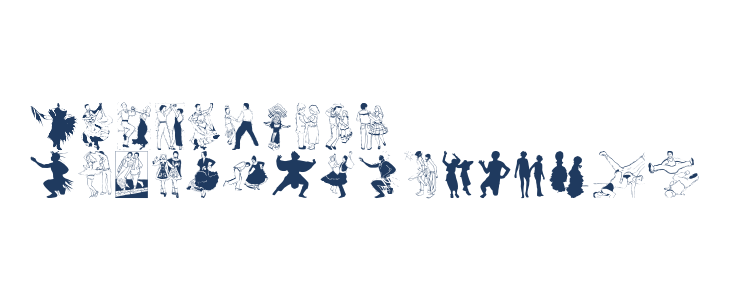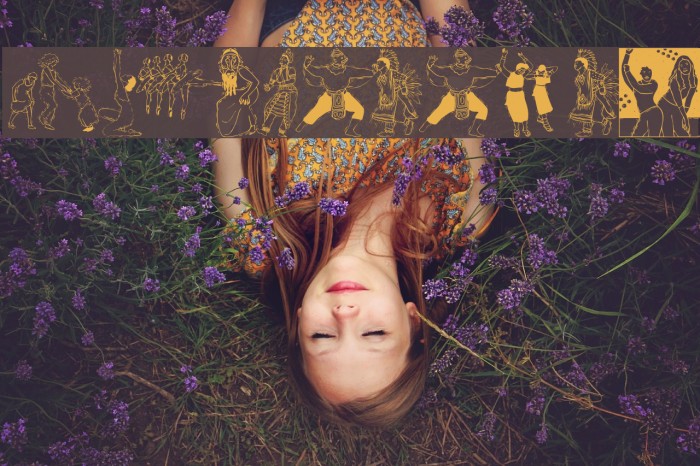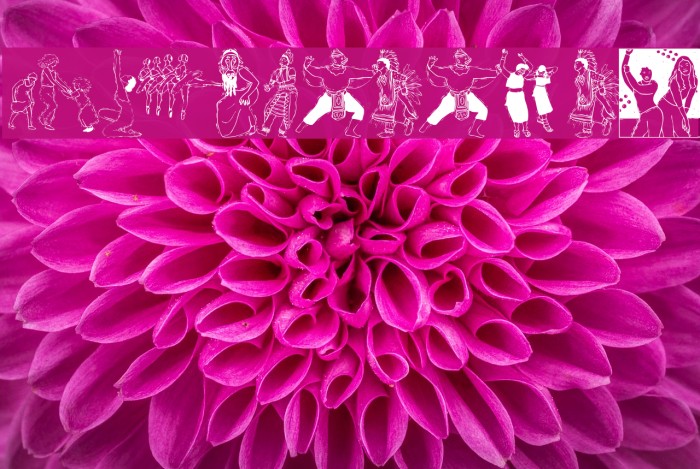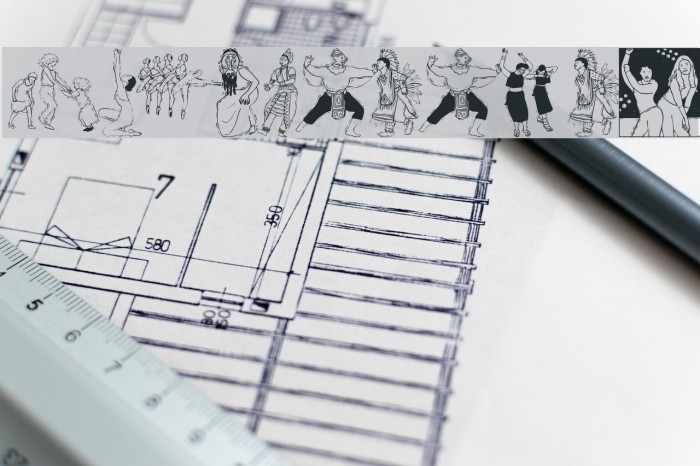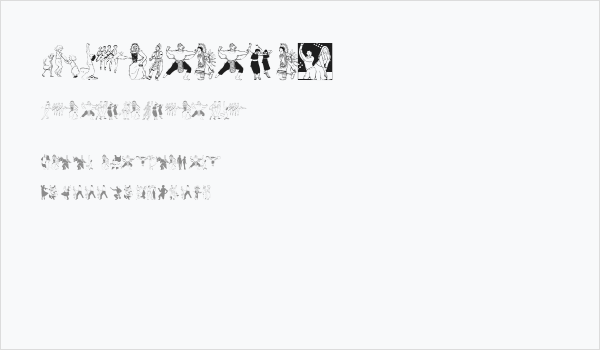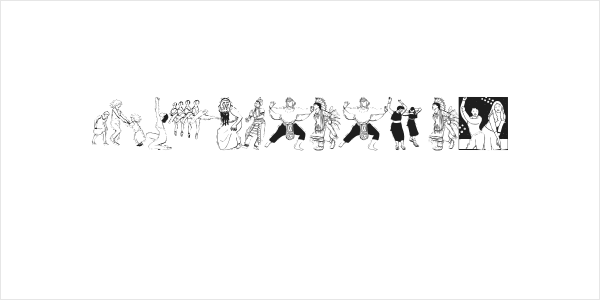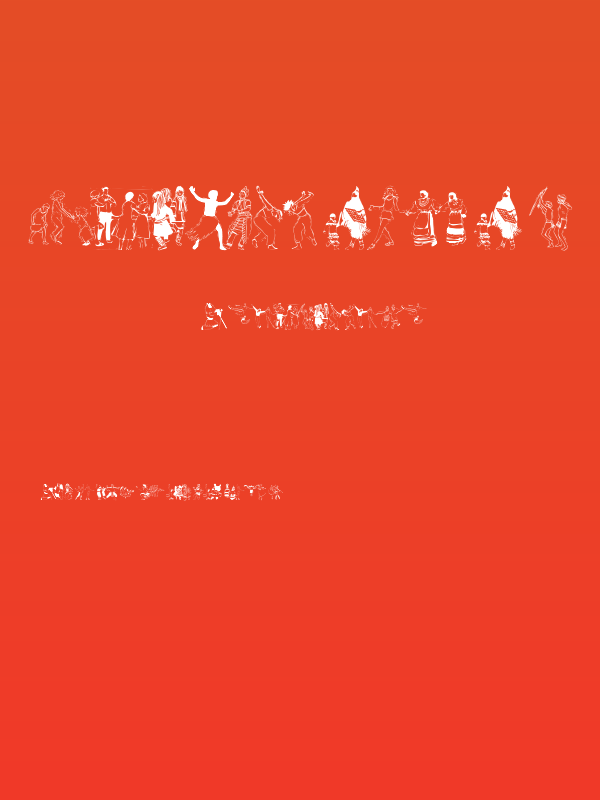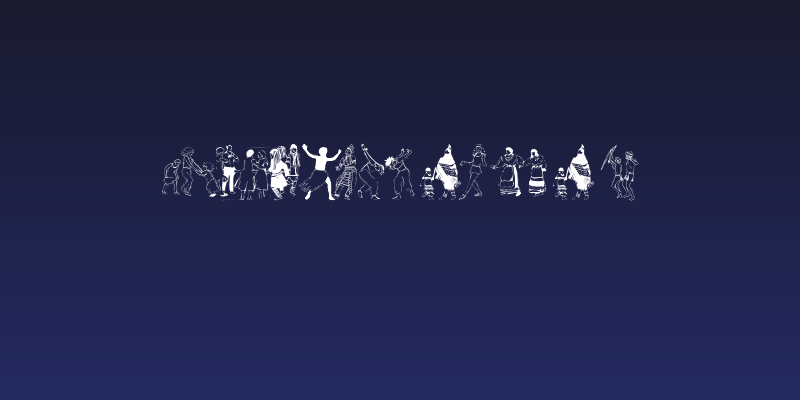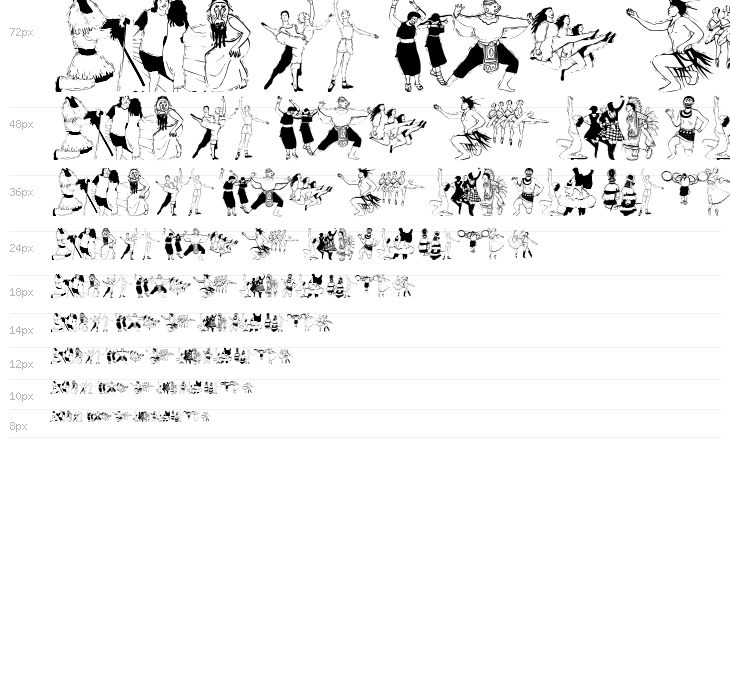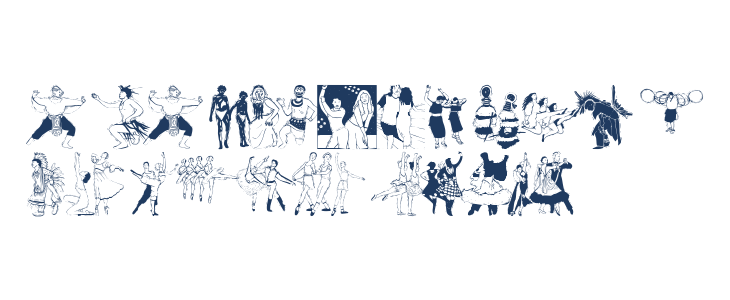
MoreDancing Font
MoreDancing Description
A decorative display font composed of detailed black-and-white illustrations of people dancing in various traditional, folk, and cultural styles. Each character is represented by a unique dance pose or group of dancers, creating a lively and dynamic visual effect. The glyphs are highly illustrative, with intricate line work and varying silhouettes, making each letterform distinct and expressive.
| Overall Style | Decorative, Artistic, Playful, Cultural |
| Use Case | Headlines, Posters, Logos, Themed graphics |
| Proposed Projects | Event posters, cultural festival branding, dance studio logos, educational materials about world dance, creative invitations. |